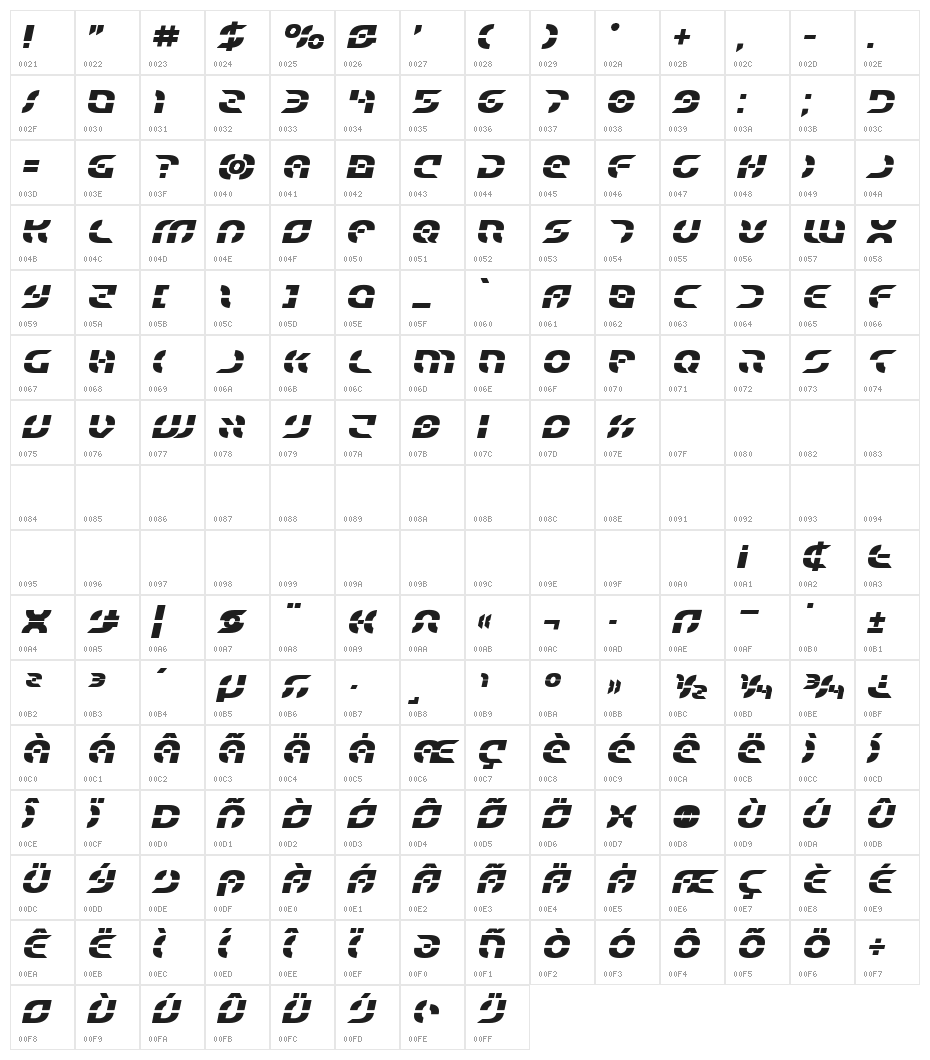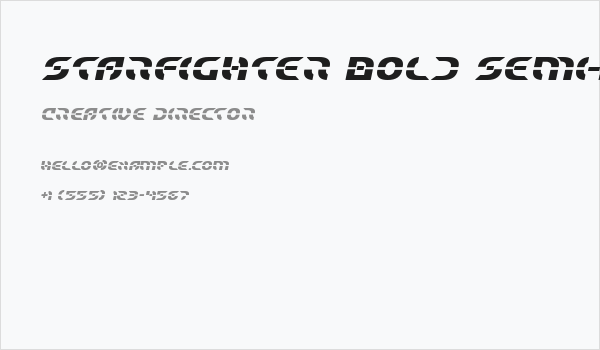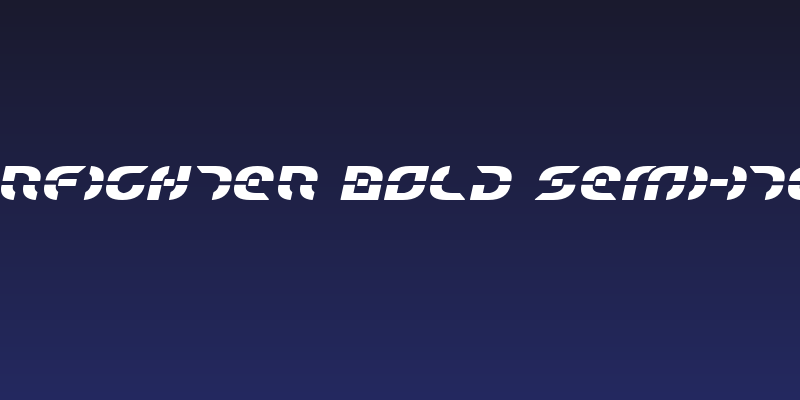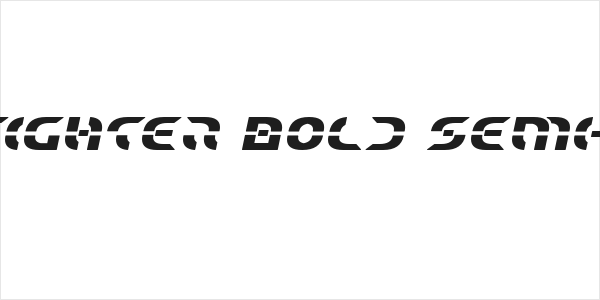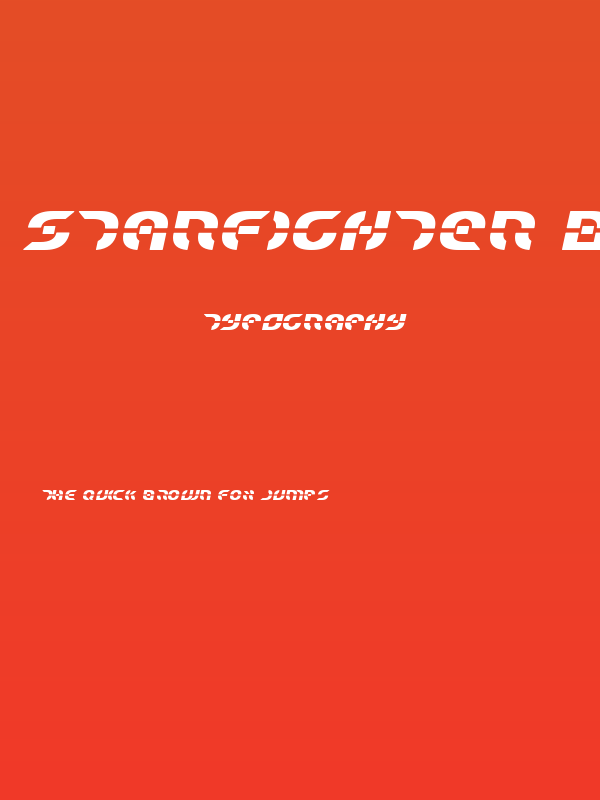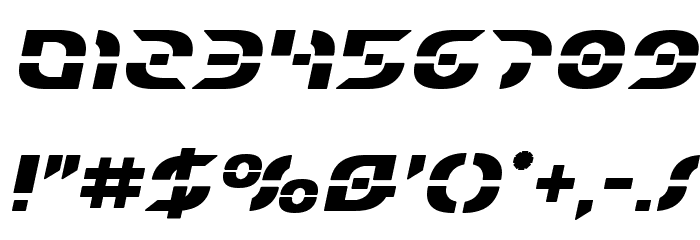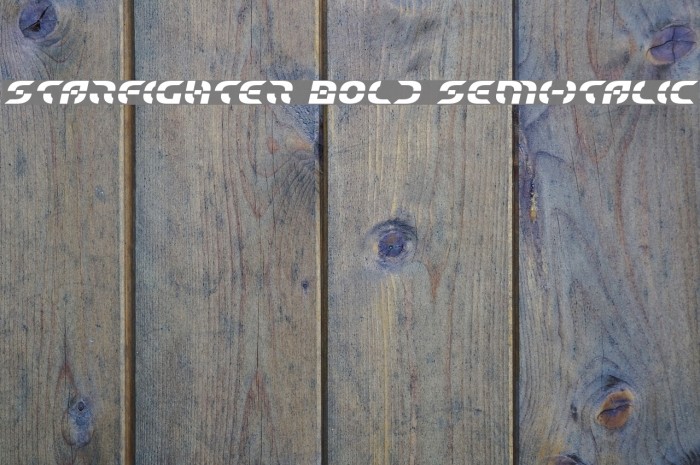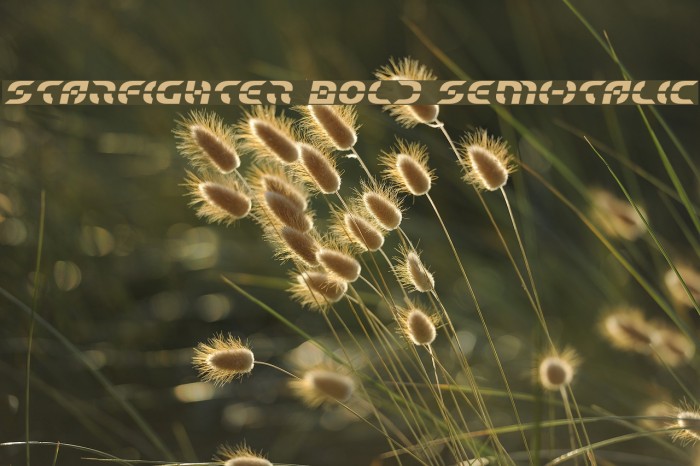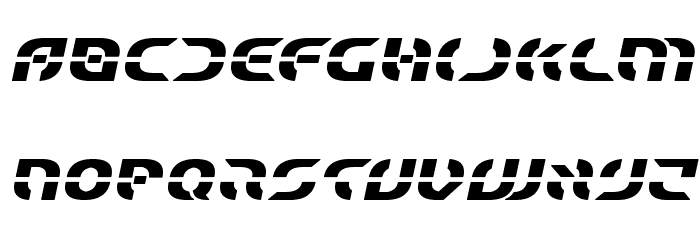
Starfighter Bold Semi-Italic Font
Starfighter Bold Semi-Italic Description
This font features a futuristic and bold design with semi-italic characteristics. The letters are constructed with a unique stencil-like appearance, incorporating sharp angles and geometric shapes. The style is reminiscent of sci-fi themes, making it ideal for projects that require a modern and edgy look. The uppercase and lowercase letters maintain a consistent style, with numbers and special characters following the same design principles. The font's distinct cut-out sections add a dynamic and energetic feel, perfect for capturing attention.
| Proposed Projects | Ideal for sci-fi movie posters, video game titles, tech branding, and futuristic event invitations. |